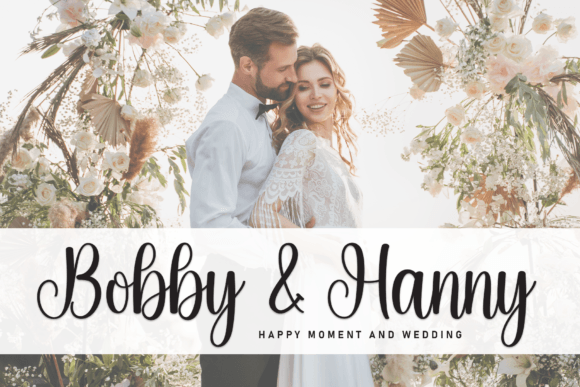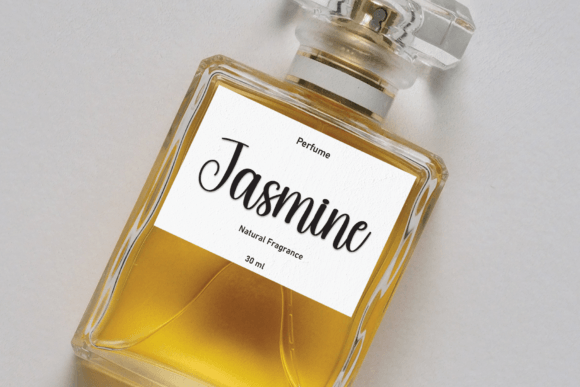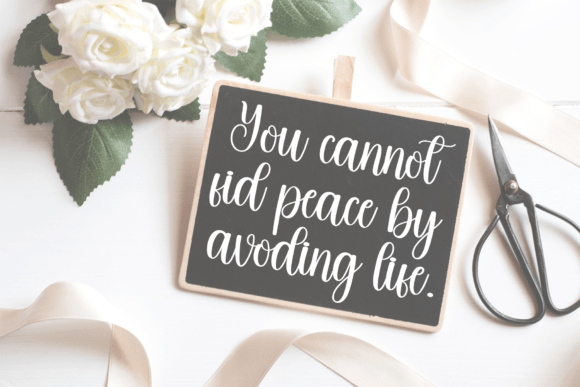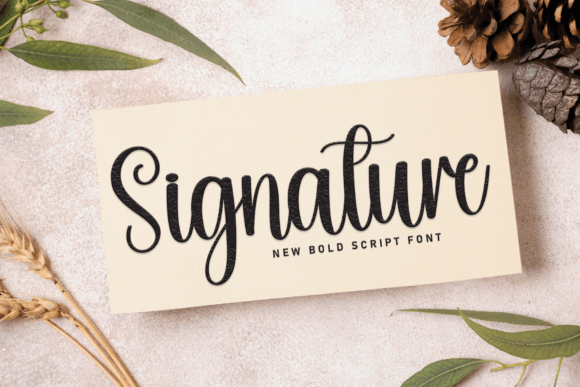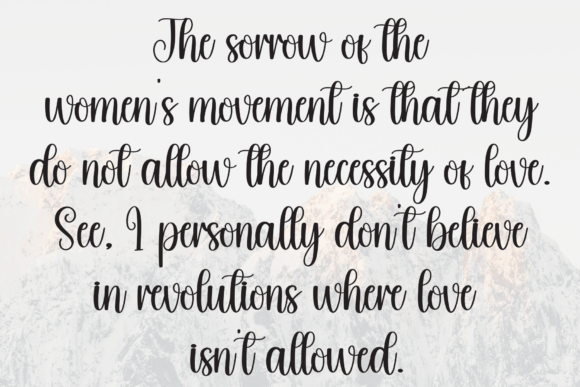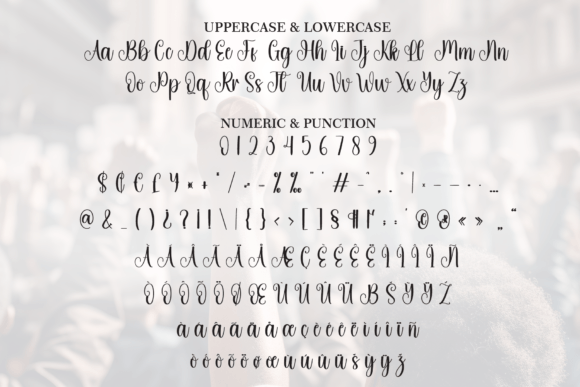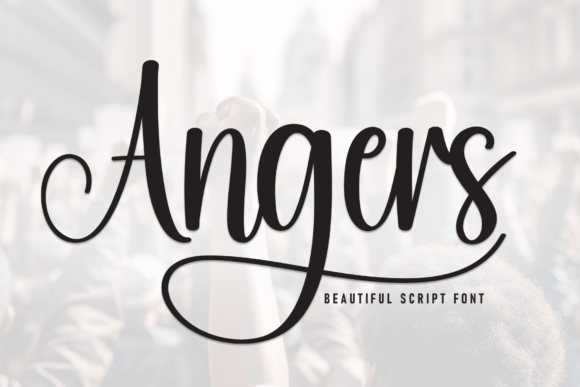
Discover the Charm of Angers Font: A Clean and Friendly Handwritten Font
Are you tired of using the same old fonts in your designs? Look no further than Angers Font, a clean, relaxed, and friendly handwritten font that’s perfect for a wide range of projects. With its neat and simple style, Angers Font has the potential to become your go-to font for any occasion.
What is Angers Font?
Angers Font is a beautifully crafted handwritten font that’s designed to bring a touch of warmth and personality to your designs. Its clean and relaxed style makes it perfect for use in a variety of contexts, from digital designs to print materials. Whether you’re working on a logo, brochure, or social media post, Angers Font is sure to make your content stand out.
Key Features of Angers Font
- Clean and Simple Style: Angers Font features a neat and simple style that’s easy to read and looks great in a variety of contexts.
- Handwritten Charm: Despite its clean style, Angers Font still retains a charming handwritten feel that’s perfect for adding a personal touch to your designs.
- Versatile: Angers Font is suitable for use in a wide range of designs, from digital projects to print materials.
- Easy to Read: Angers Font is designed to be easy to read, making it perfect for use in body text or other applications where readability is key.
Why Choose Angers Font?
So why should you choose Angers Font for your next project? Here are just a few reasons why Angers Font is a great choice:
- Unique and Eye-Catching: Angers Font is a unique and eye-catching font that’s sure to make your designs stand out from the crowd.
- Easy to Pair: Angers Font pairs well with a wide range of other fonts, making it easy to use in combination with other typefaces.
- High-Quality: Angers Font is a high-quality font that’s designed to deliver exceptional results in a variety of contexts.
How to Use Angers Font
Angers Font is a versatile font that can be used in a wide range of contexts. Here are just a few ideas for how you can use Angers Font in your designs:
- Logos and Branding: Angers Font is a great choice for logos and branding projects, thanks to its unique and eye-catching style.
- Print Materials: Angers Font is perfect for use in print materials, such as brochures, flyers, and business cards.
- Digital Designs: Angers Font is also great for use in digital designs, such as social media posts, website headers, and email marketing campaigns.
Tips for Getting the Most Out of Angers Font
Here are a few tips for getting the most out of Angers Font:
- Experiment with Different Sizes: Angers Font looks great in a variety of sizes, so don’t be afraid to experiment to find the perfect size for your project.
- Pair with Other Fonts: Angers Font pairs well with a wide range of other fonts, so try pairing it with other typefaces to create a unique and eye-catching look.
- Use in Combination with Images: Angers Font looks great when used in combination with images, so try using it to add a touch of personality to your designs.
Angers Font is a clean, relaxed, and friendly handwritten font that’s perfect for a wide range of designs. With its neat and simple style, Angers Font has the potential to become your go-to font for any occasion. Whether you’re working on a logo, brochure, or social media post, Angers Font is sure to make your content stand out. So why not give Angers Font a try and see the difference it can make in your designs?